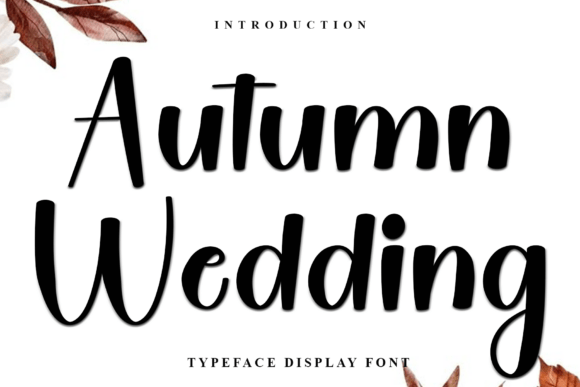
Enter the Autumn Wedding Font, a beautiful and eye-catching typeface designed to evoke the feeling of a crisp autumn day. With its soft, distinctive strokes, this font is perfect for designers looking to add a touch of natural charm to their projects. Whether you’re working on a wedding invitation, a craft project, or a design for a seasonal product, the Autumn Wedding Font is a valuable addition to your toolkit.
Autumn Wedding Font Key Features
- Unique Characteristics: Features elegant, cursive script with intricate details, ideal for creating a romantic and sophisticated atmosphere.
Designer Review: Autumn Wedding Font
Overall, the Autumn Wedding Font is a beautiful, elegant script font that would be perfect for any wedding invitation or stationery. ✨ The flowing lines and delicate curves give it a whimsical, romantic feel that’s sure to impress.
- ✨ Unique and elegant script design
- ✨ Perfect for wedding invitations, stationery, and other romantic designs
- ⚠️ Limited character set and language support
- ⚠️ May not be suitable for text-heavy designs due to the flowing lines and delicate curves
- ⚠️ Some users may find the font difficult to read at small sizes
Overall, I would give the Autumn Wedding Font 4 out of 5 stars. While it’s not perfect, its unique design and elegance make it a great choice for wedding and romantic designs. With a little caution and planning, it can be a beautiful addition to any design project.
For a more authentic look, pair the Autumn Wedding Font with warm-toned backgrounds and natural textures.
For a cohesive look, use the Autumn Wedding Font consistently throughout your design, and balance with neutral colors and textures.
For a polished look, use the Autumn Wedding Font in conjunction with clean, simple designs and elegant graphics.
The Autumn Wedding Font is ideal for:
- Event branding and signage
- Wedding website and blog designs
Remember to experiment with different font sizes, colors, and styles to achieve the desired look for your autumn-themed wedding design.
Alternatives to Autumn Wedding Font
Great Vibes Font is a modern script font that works well for wedding invitations and stationery. It has a whimsical and elegant feel that can evoke a sense of romance and sophistication. Use it for a more contemporary and stylish wedding theme.
Compared to Autumn Wedding Font, Great Vibes Font has a more fluid and organic feel, making it ideal for a beach or outdoor wedding. While Autumn Wedding Font has a more rustic and earthy tone, Great Vibes Font is more versatile and can work well for various wedding themes.
2. Lobster Font
Lobster Font is a cursive font that has a vintage and elegant feel. It’s perfect for a classic and romantic wedding theme. Use it for a more traditional and sophisticated wedding invitation or stationery.